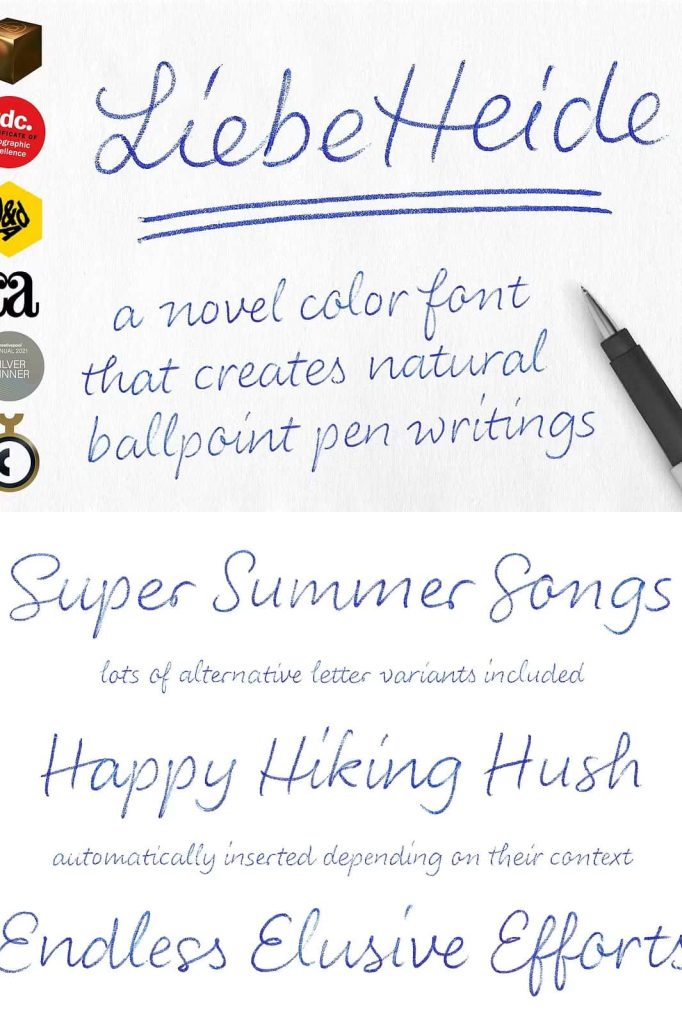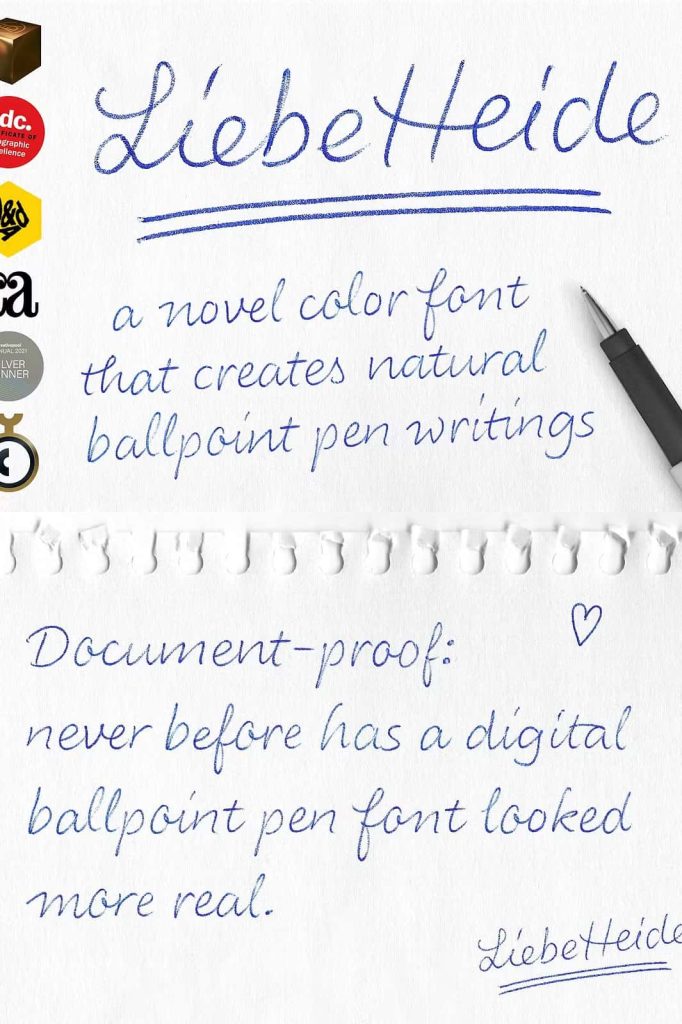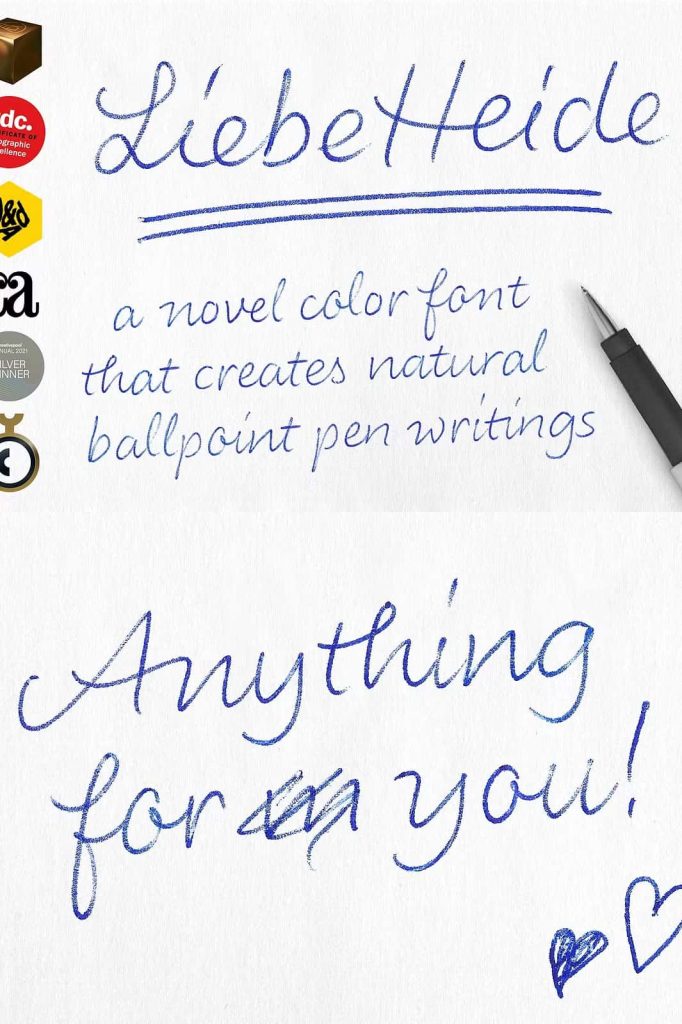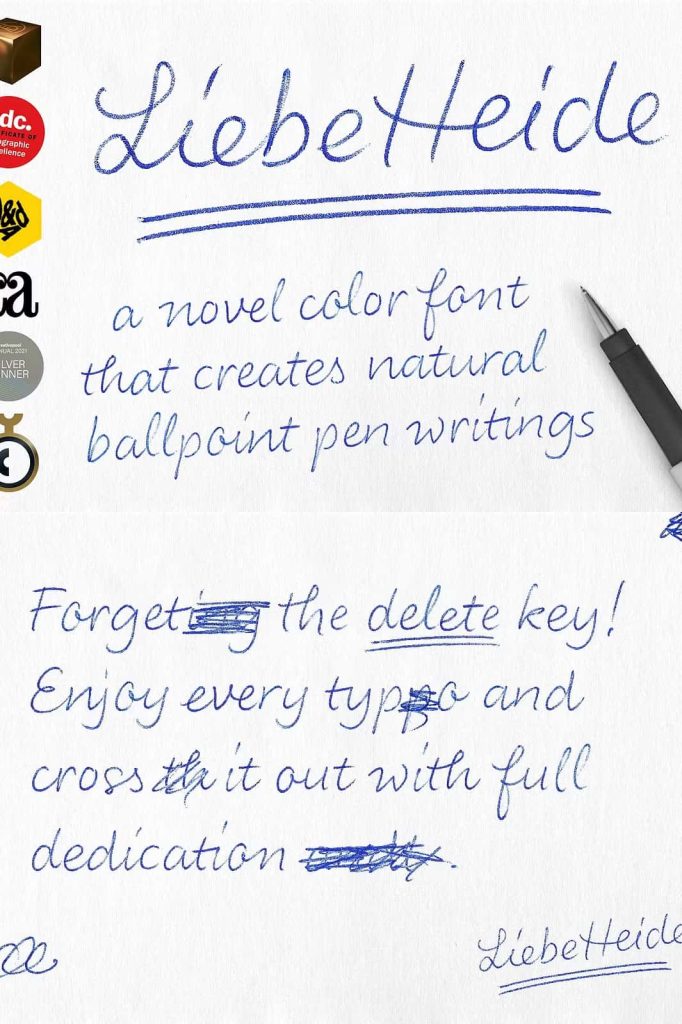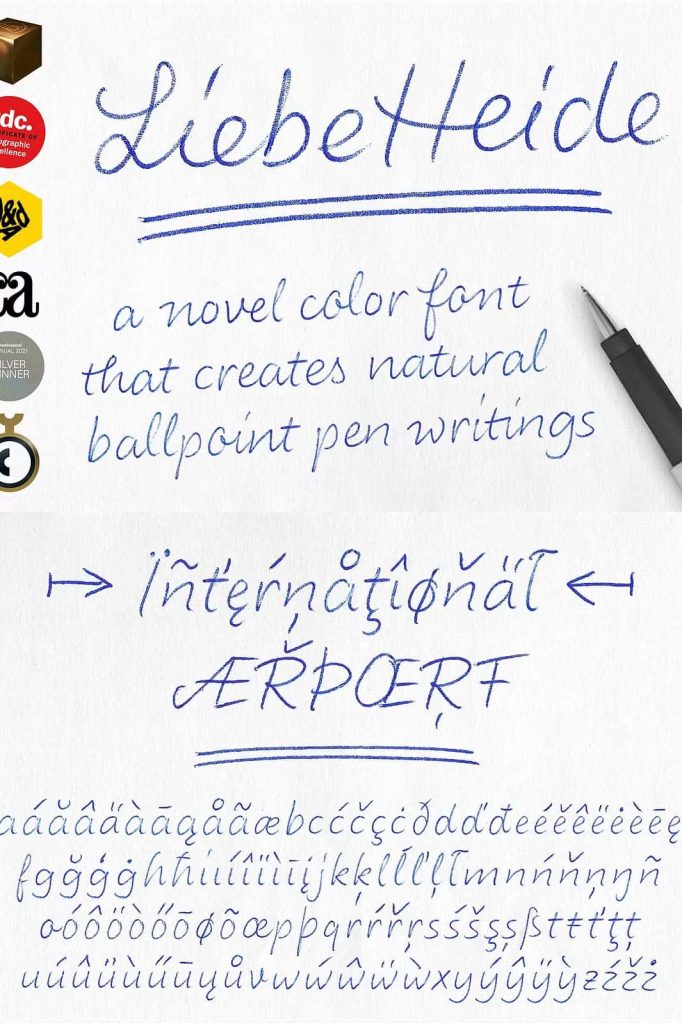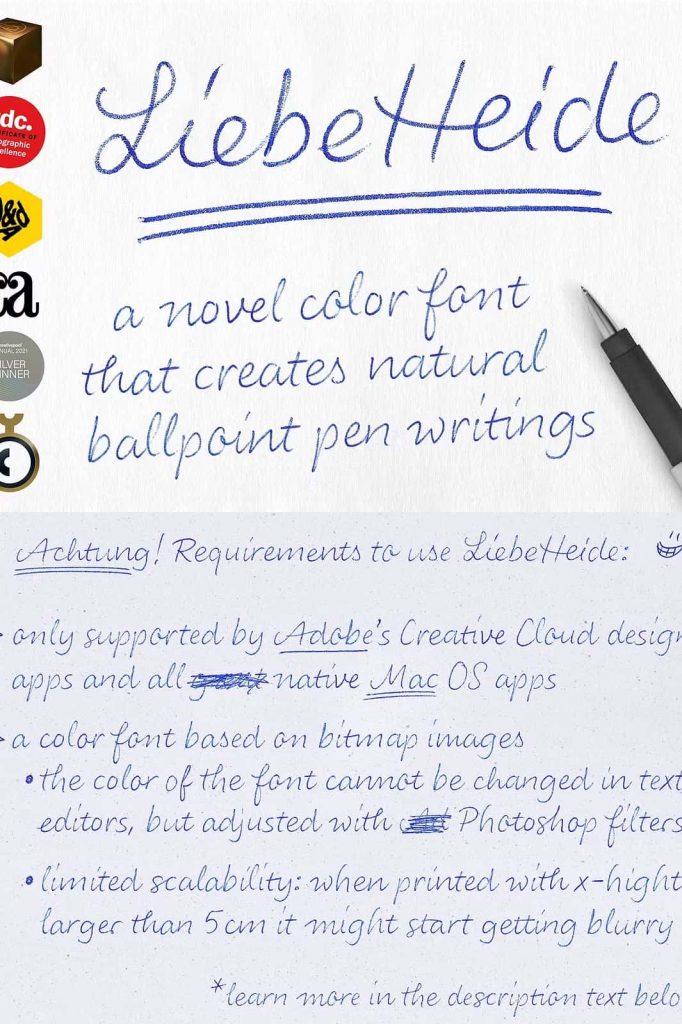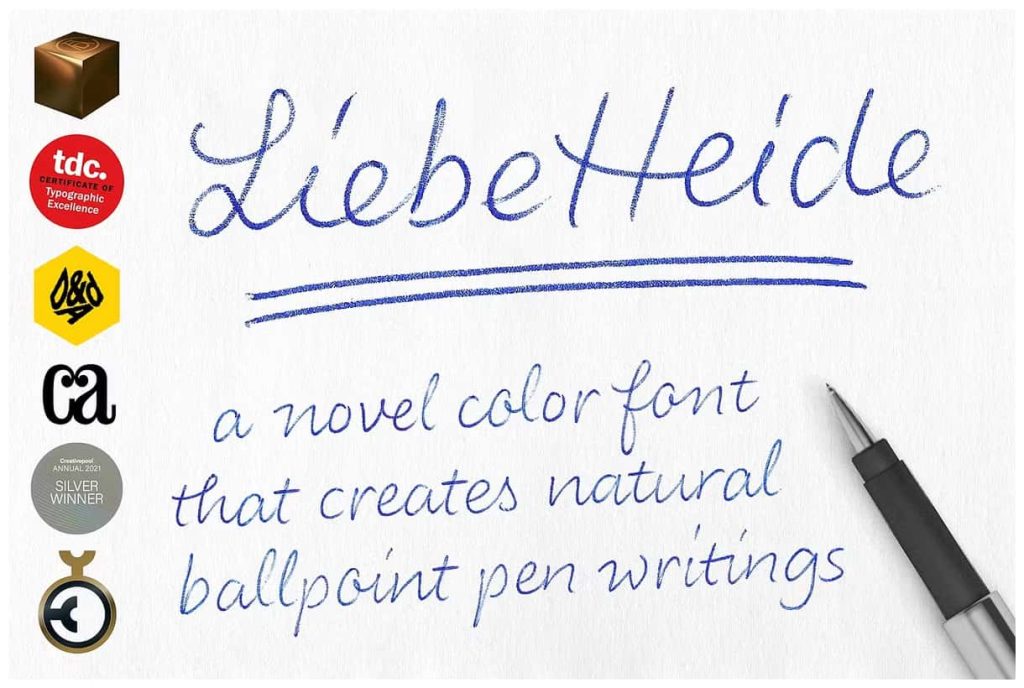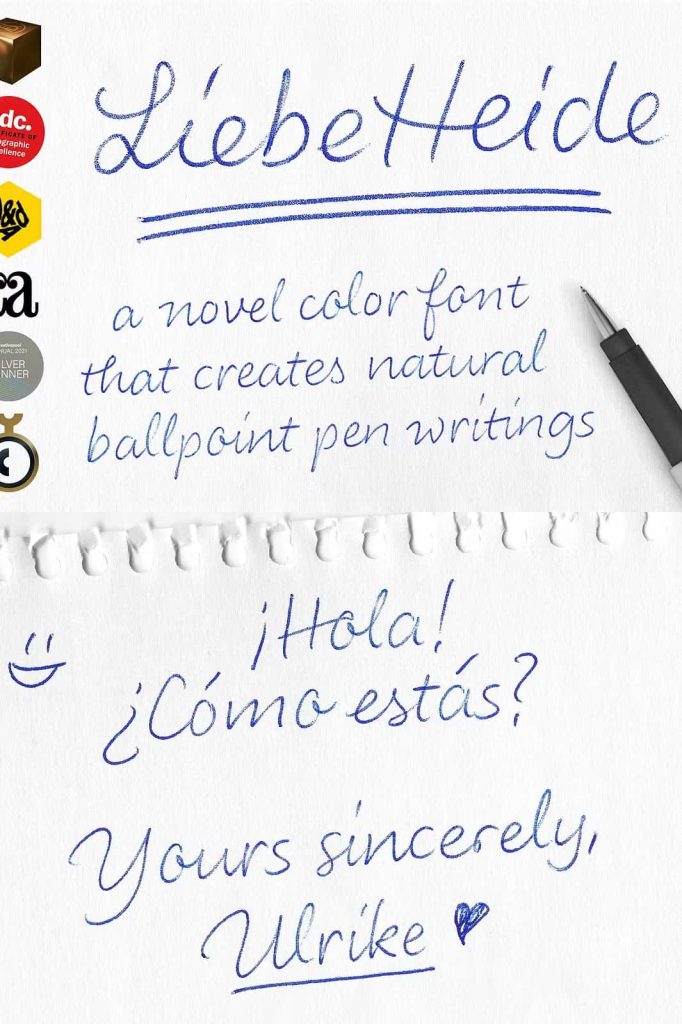
LiebeHeide, designed by Ulrike Rausch, is based on high-res digitized ballpoint pen letterings, combined with OpenType features such as ligatures and alternate letters.